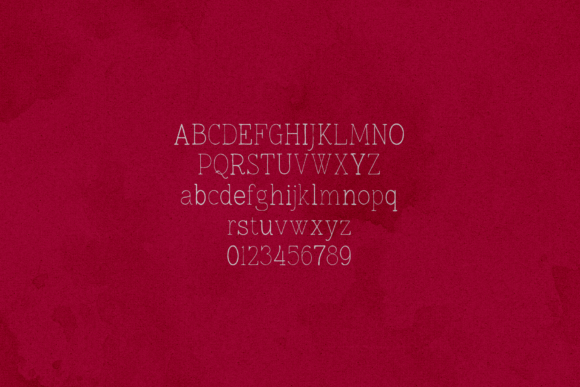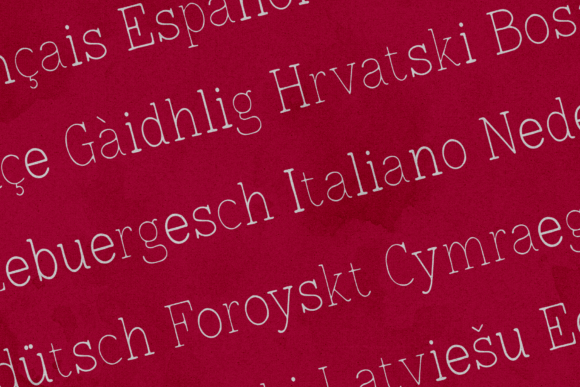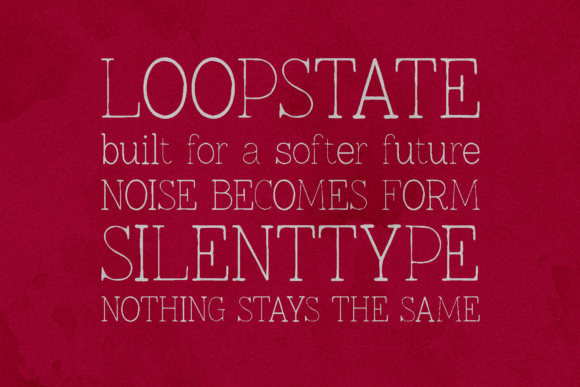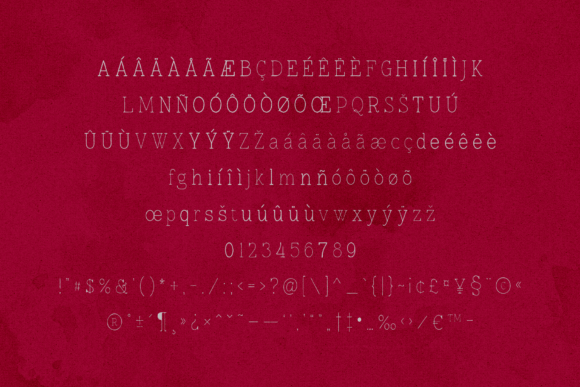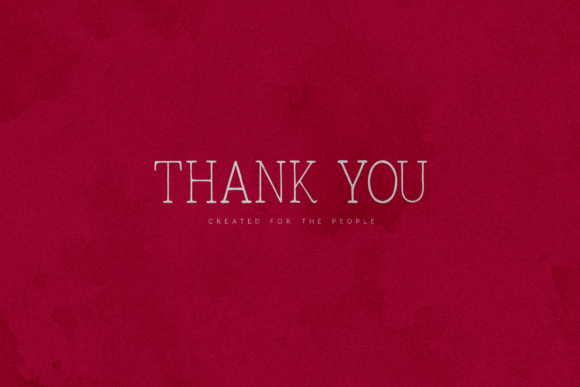
Introduction to Lonely Moon Font
Lonely Moon is an elegant serif font designed with emotion, delicacy, and timeless beauty in mind.
Featuring refined proportions, gentle curves, and subtle contrast, this typeface delivers a poetic and expressive voice that feels intimate yet sophisticated Perfect for editorial design, book covers, poetry layouts, luxury branding, posters, invitations, album artwork, and cinematic visuals, Lonely Moon shines in designs that require atmosphere and storytelling.
Key Features of Lonely Moon Font